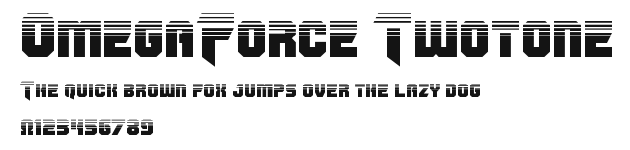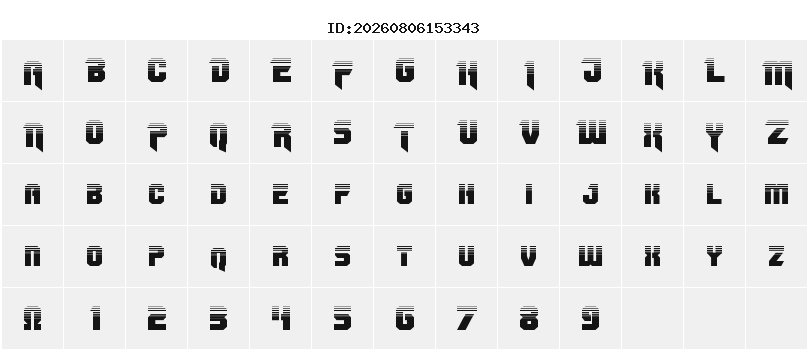
OmegaForce Twotone Preview
• Font Name: OmegaForce Twotone
• Full Font Name: OmegaForce Twotone Regular
About OmegaForce Twotone.ttf
OmegaForce Twotone.ttf is a modern, elegant sans-serif font designed for ultimate readability and visual harmony. Perfect for branding, headlines, web design, and print materials.